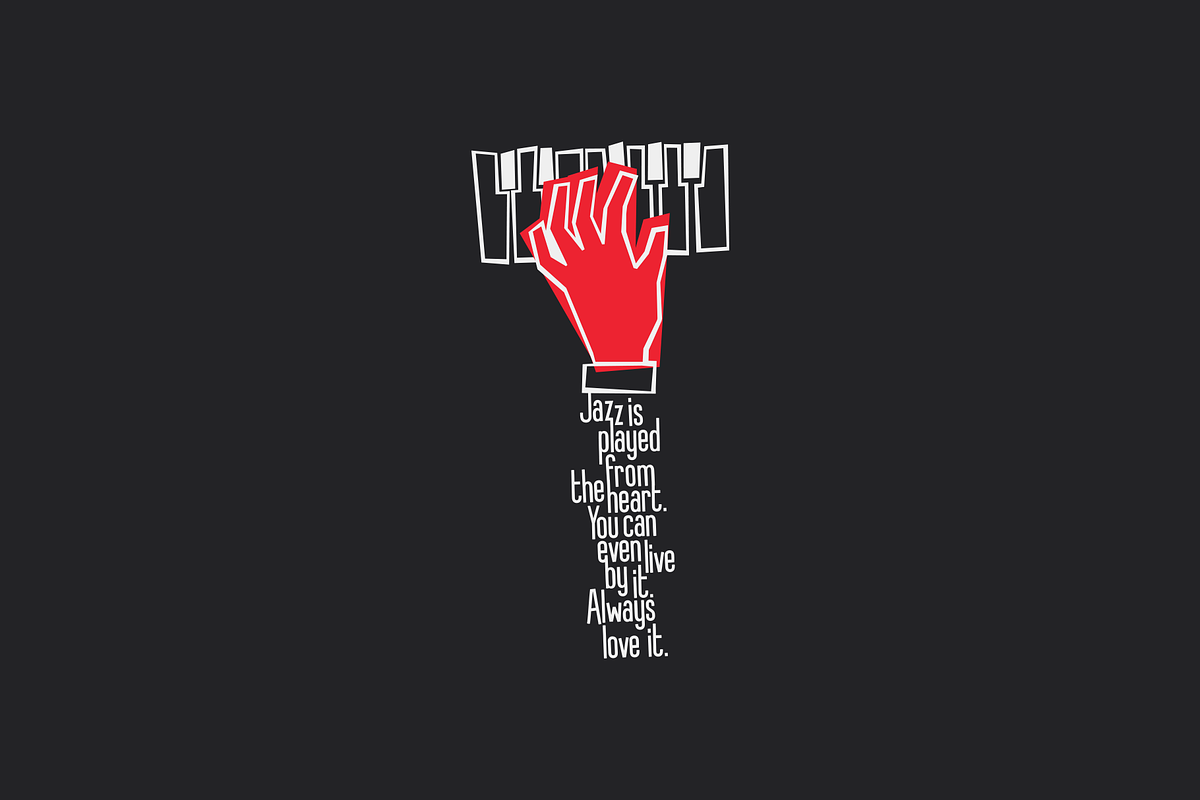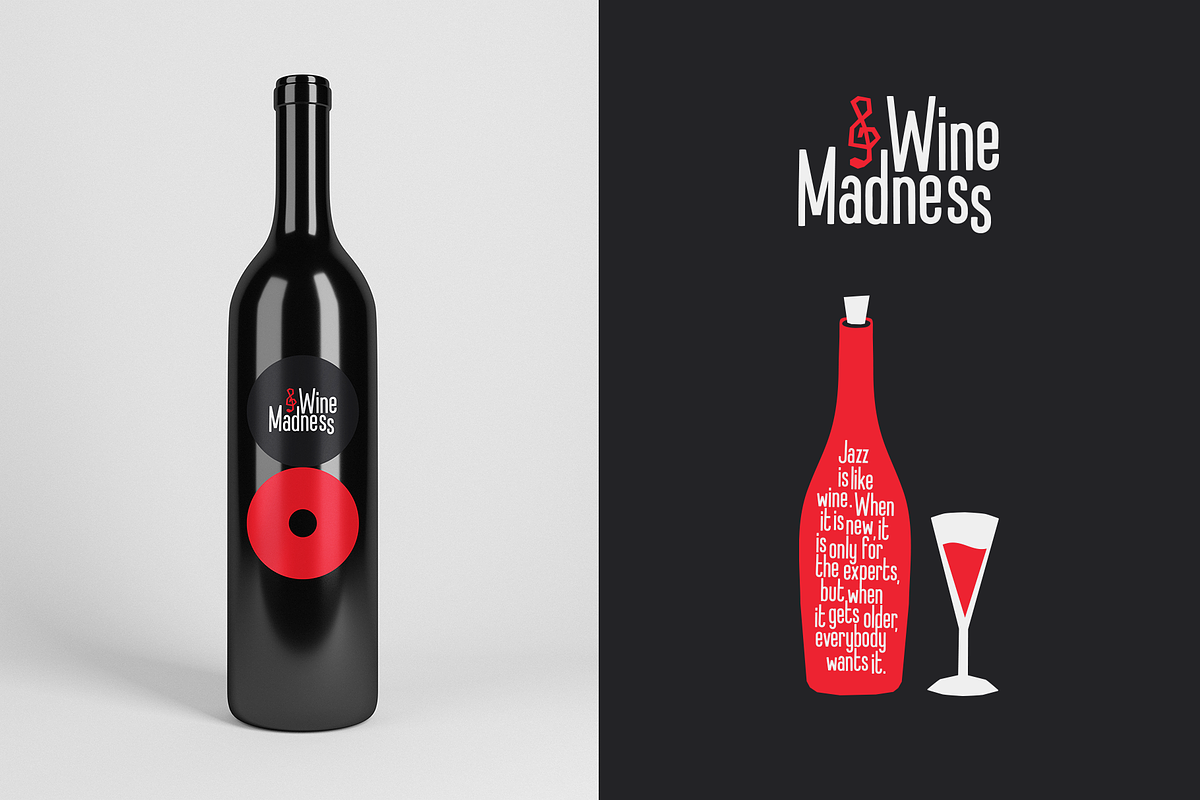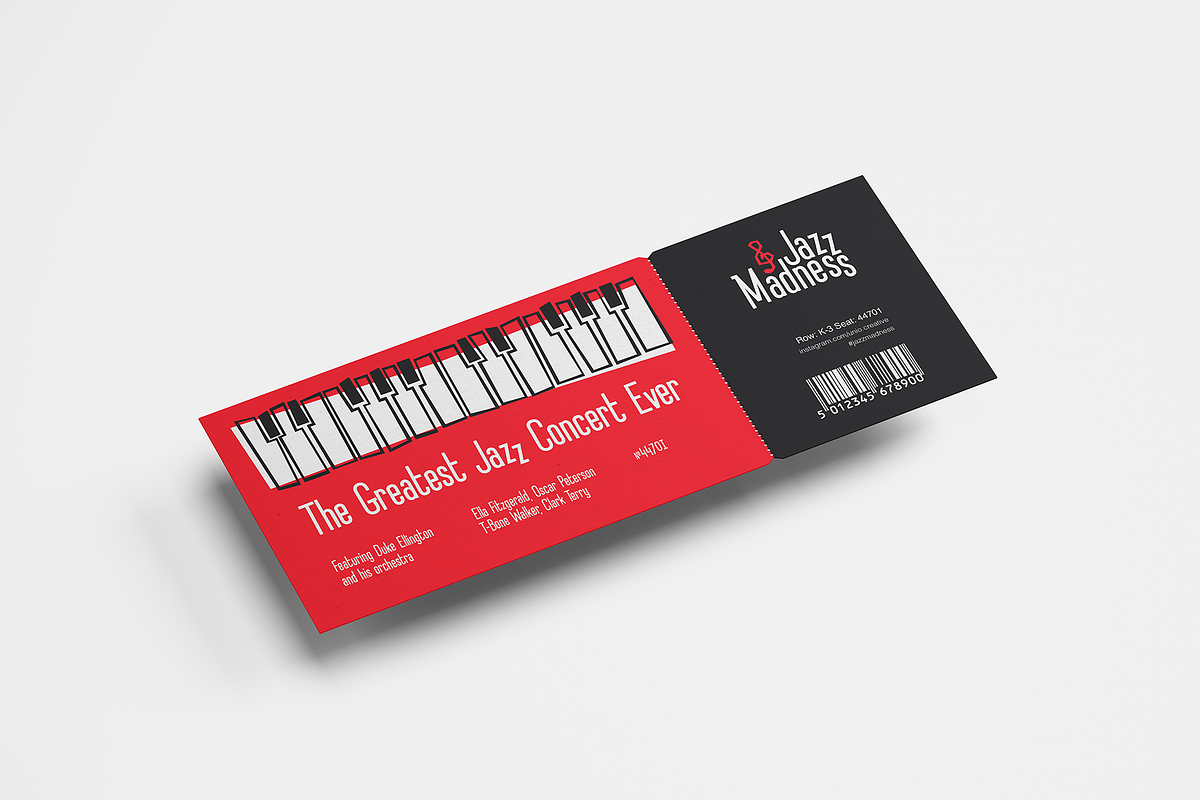
Let's Jazz
Introducing “Let’s Jazz” - a playful typeface which is inspired by iconic mid-century American advertising and lettering.
With this project we wanted to homage the dazzling graphics of those booming years and the result is a jazzy typeface that provides a condensed aspect with a bouncy rhythm.
As previously said, Let’s Jazz gives the spontaneous vibe of this sensational music genre but it has been also designed with a strong focus to the very distinct look of Saul Bass graphics, which are honestly still fresh and convincing, even nowadays.
Let’s Jazz offers two versions, Regular and Stamp. Each version contains more than 450 glyphs and covers several languages based on the Latin alphabet; the jazzy experience is enhanced with OpenType (OTF) support for small caps and includes some neat ligatures and alternates plus the old style bouncy numerals*.
This package is a powerful tool in a wide variety of design purposes: headlines, packaging, logotypes, badges, posters and much more. A bonus collection with several illustrations has been included to help you with your design projects!
- Multi-language Support (Central, Eastern, Western European languages)
- OpenType features (Standard and Discretionary Ligatures, Alternates, Small Caps, OldStyle Numerals)